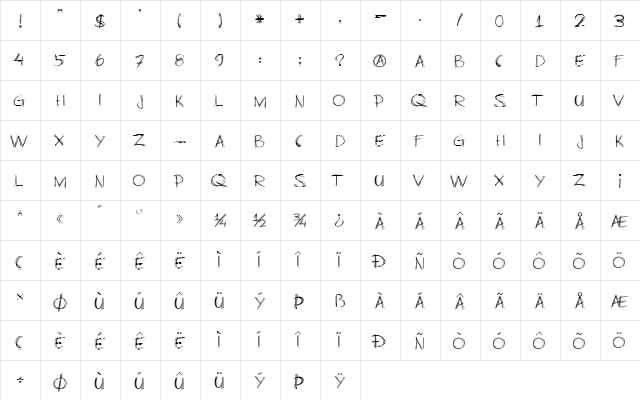
DK Business As Usual Regular
| Foundry | David Kerkhoff |
| Designer | David Kerkhoff |
Design Context for DK Business As Usual Typeface
DK Business As Usual is a composed and adaptable typeface that performs quietly and consistently across a wide range of design contexts.